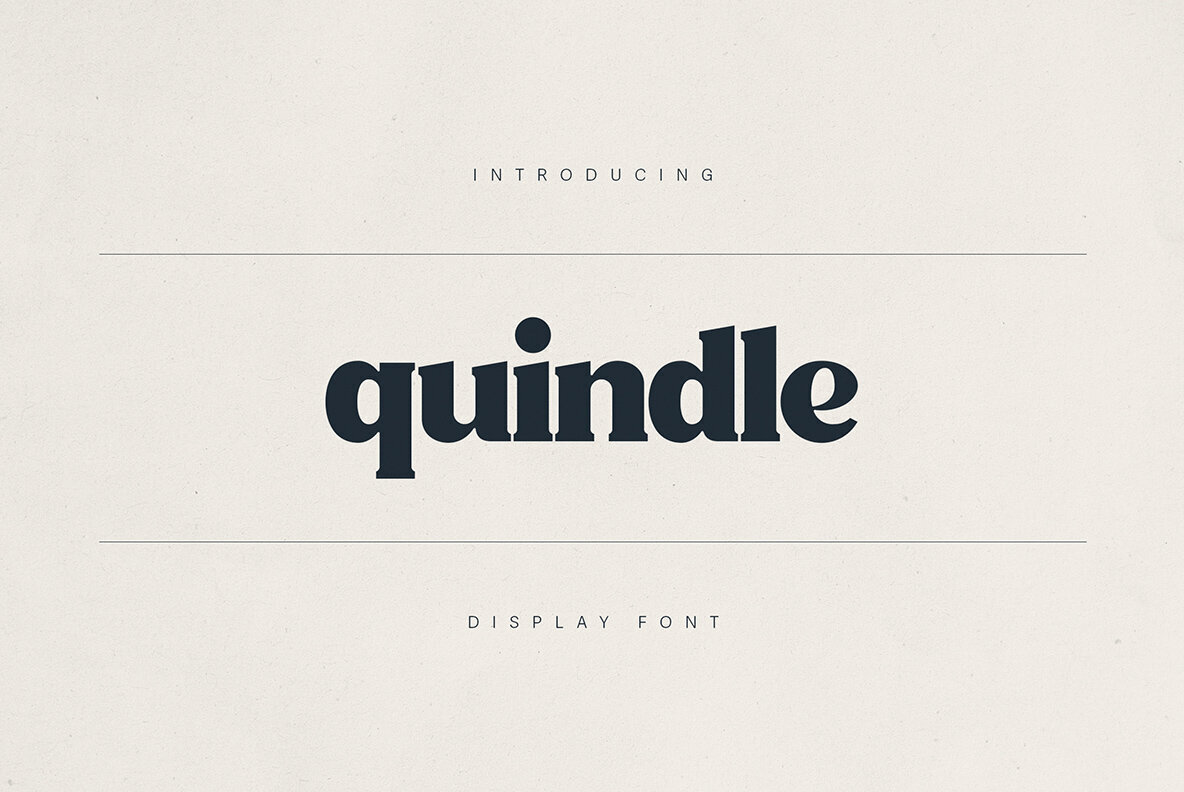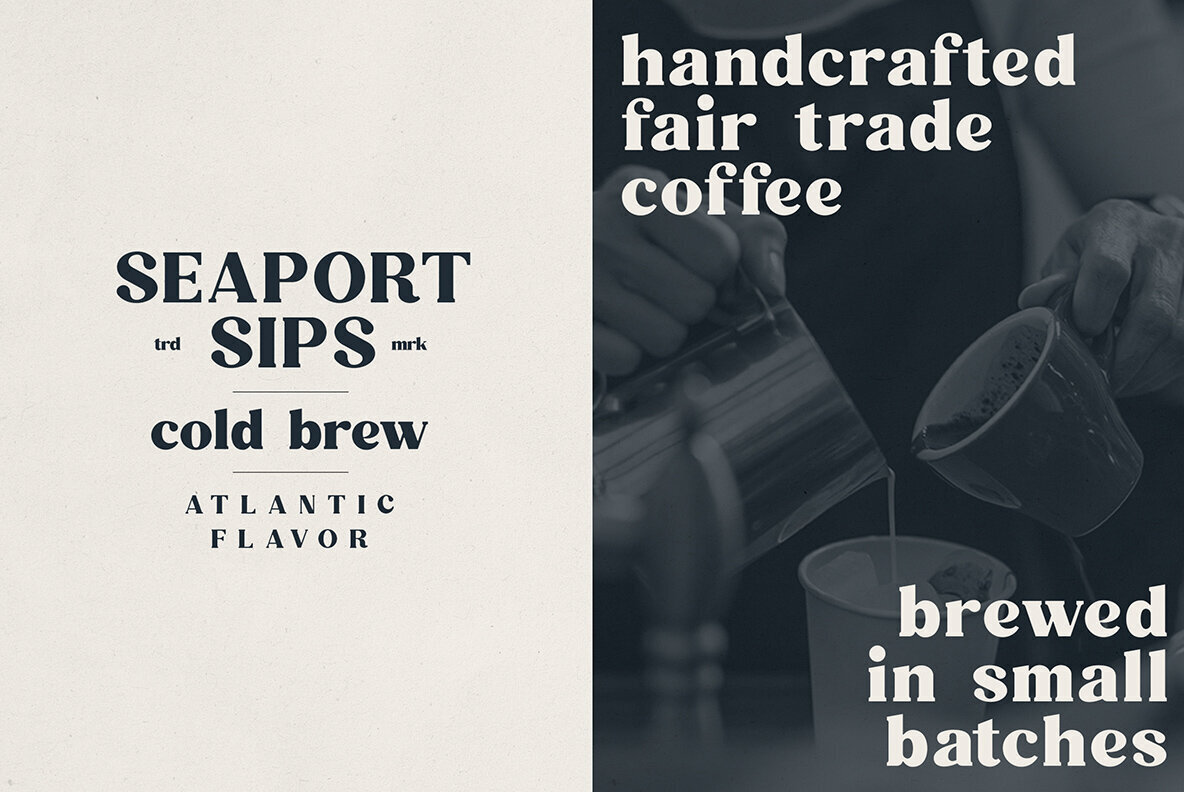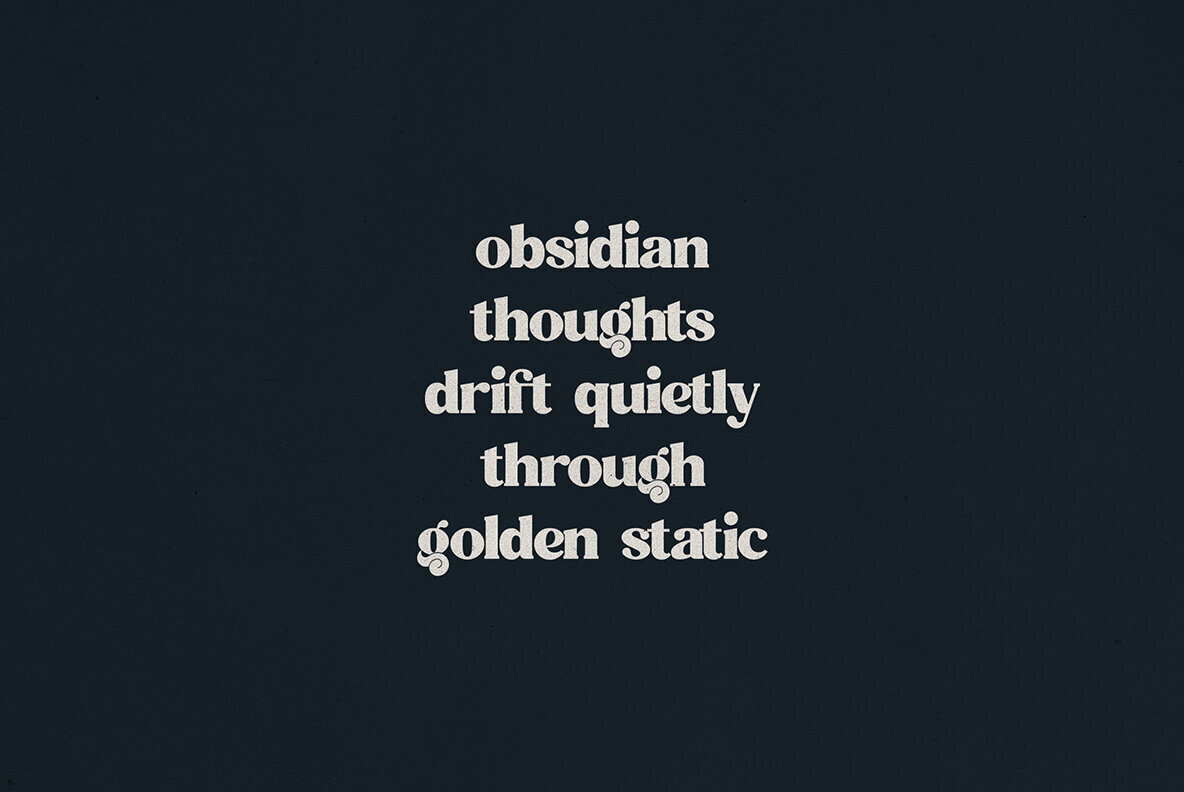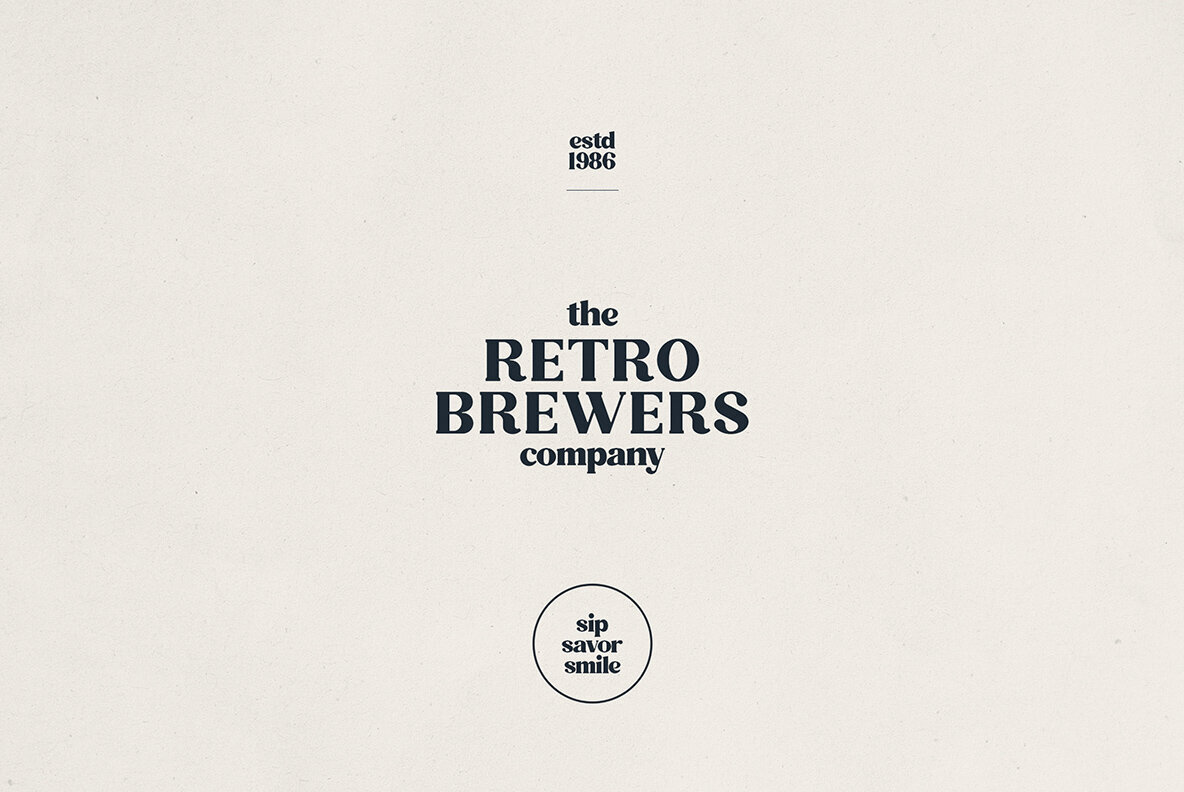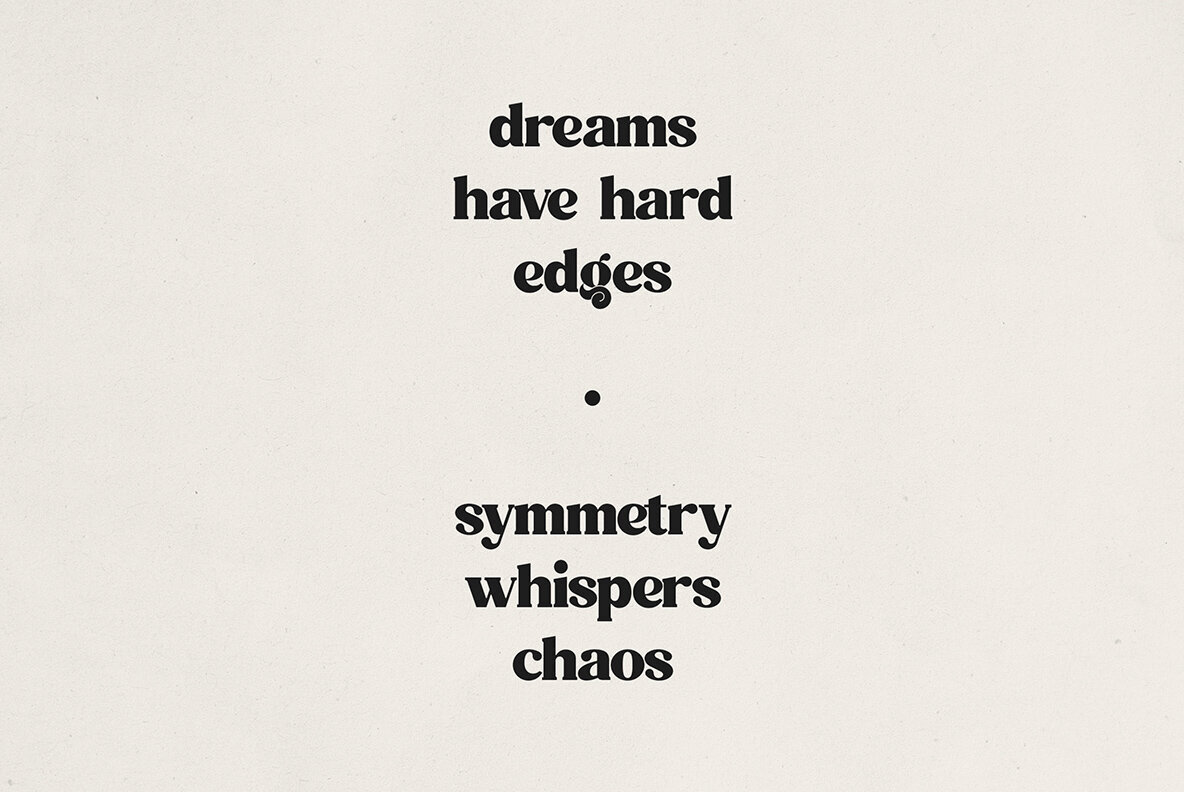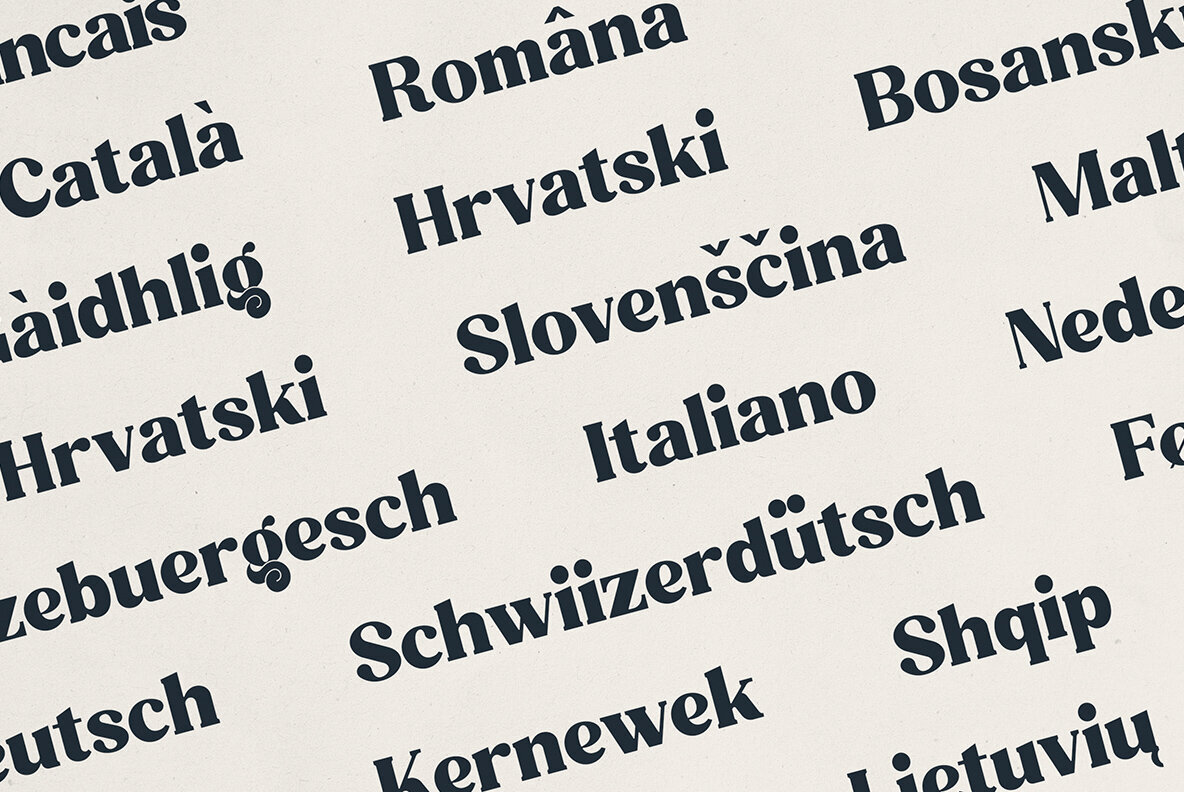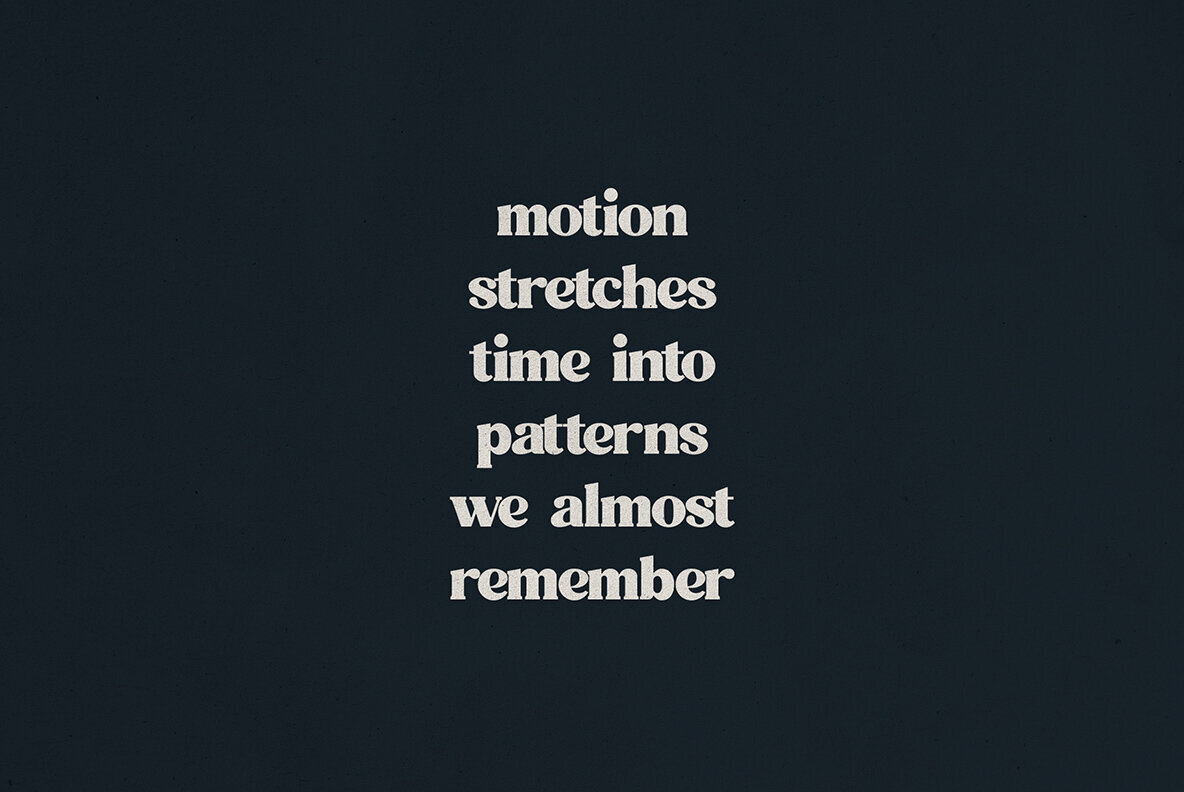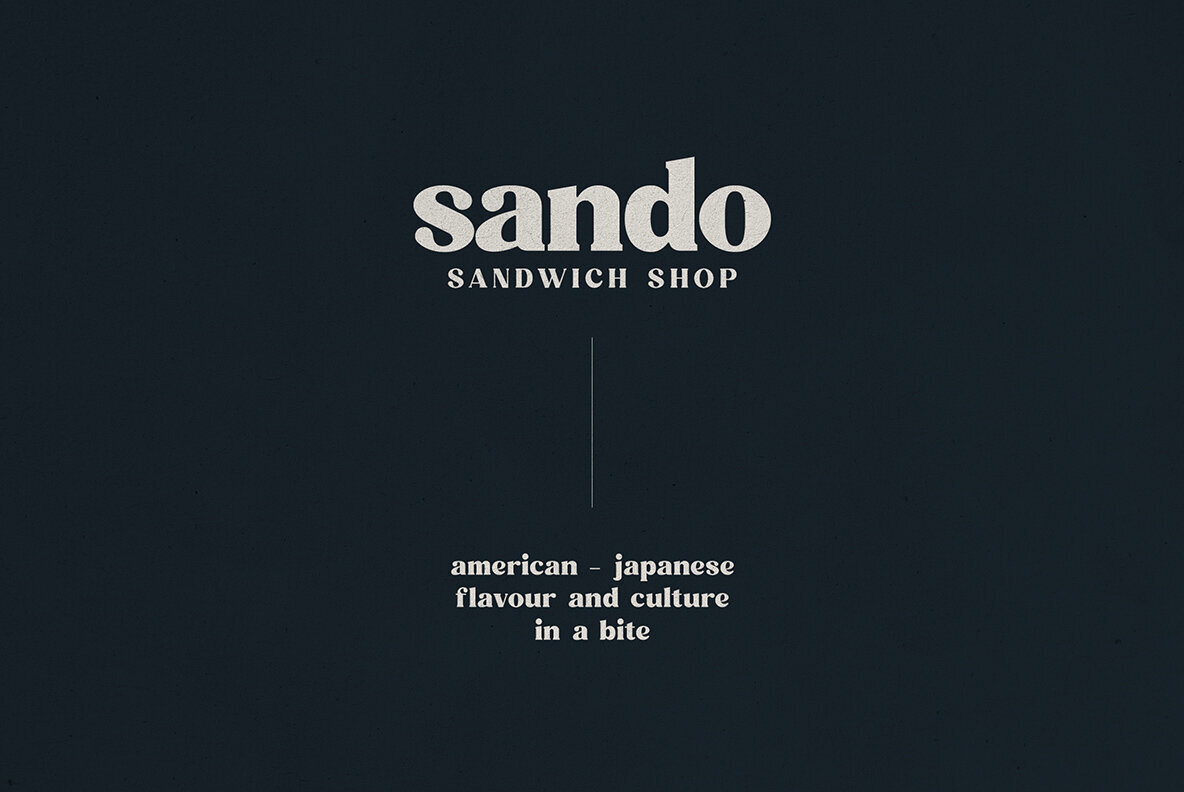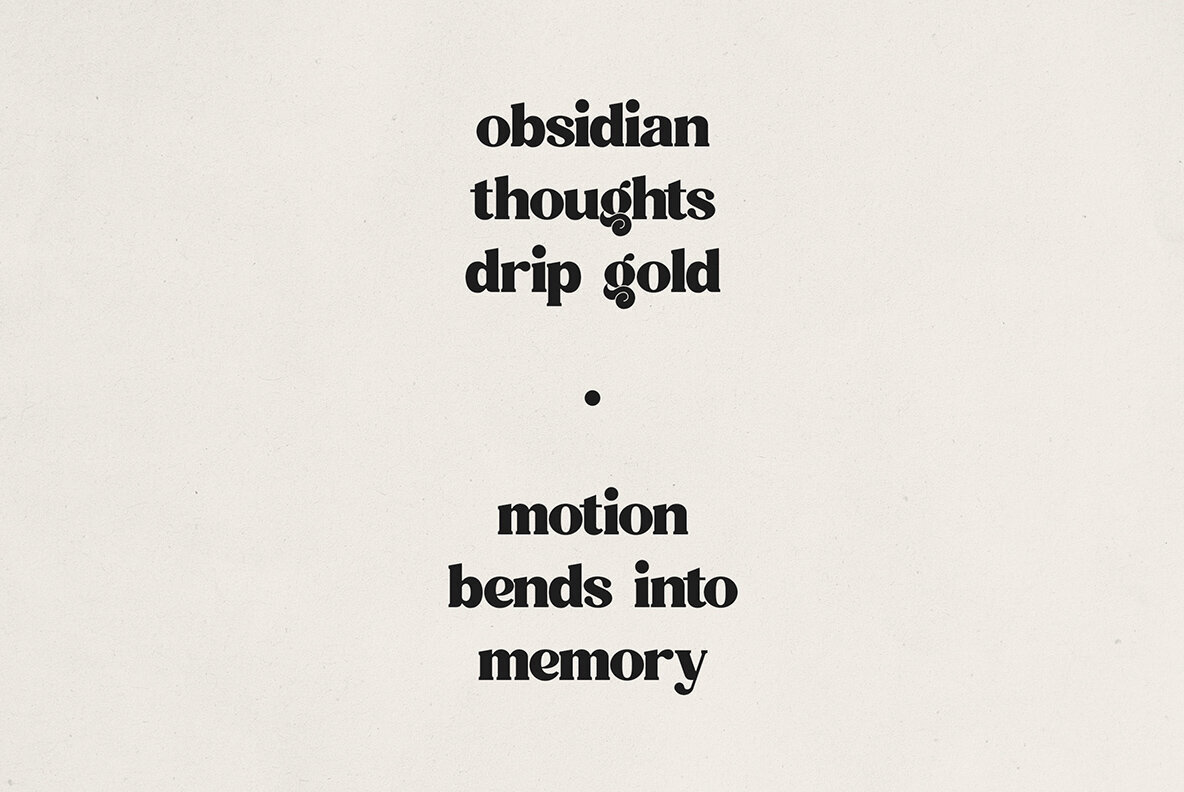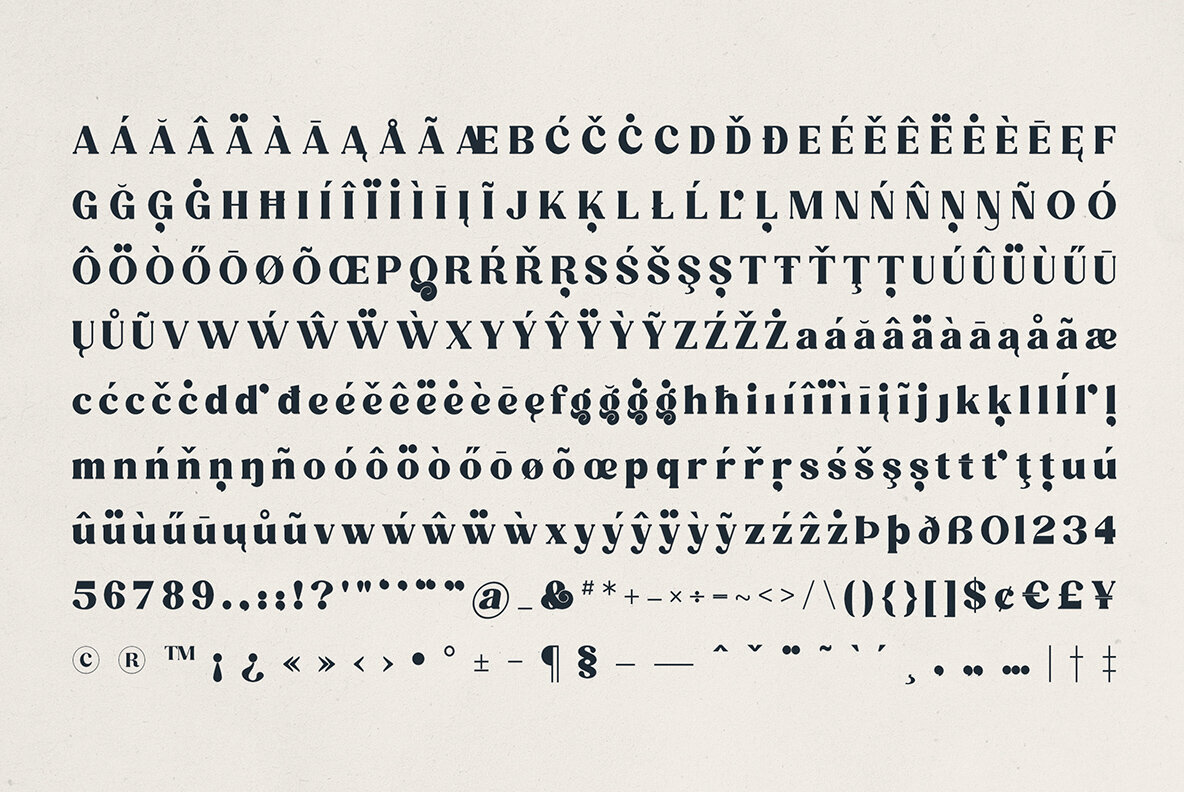
Quindle Font
Quindle Regular
Quindle is a bold display serif font that expertly marries vintage charm with modern versatility. Designed to make a statement in branding, packaging, headlines, and editorials, Quindle's robust letterforms and high-contrast strokes inject a distinct voice into your text. With unique stylistic flourishes, it’s perfect for artisan brands, café menus, nostalgic labels, and poetic expressions. This font includes multilingual support, refined ligatures, and carefully crafted alternates, ensuring your message is clear and impactful, whatever your style. Bring elegance and boldness to your typography with Quindle, where each curve makes an eloquent statement.Quindle: Retro Serif Display Font for Bold, Artful Branding